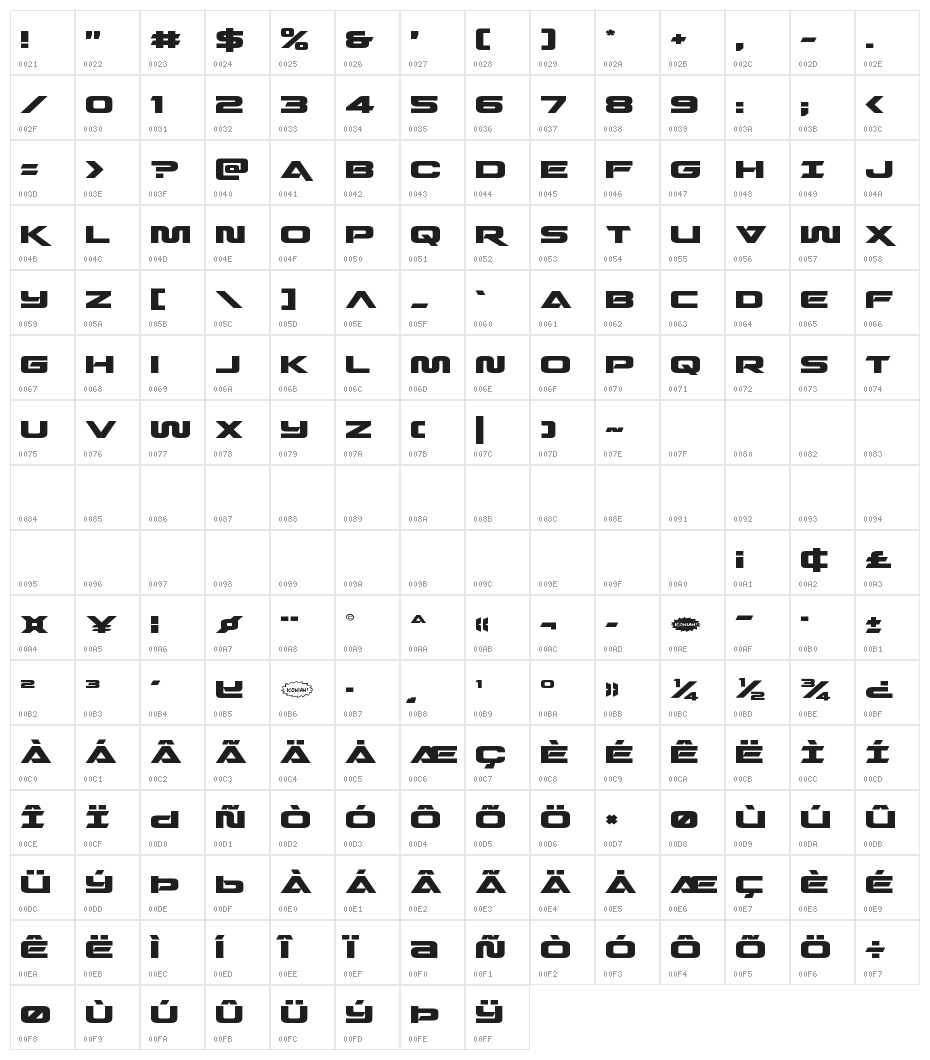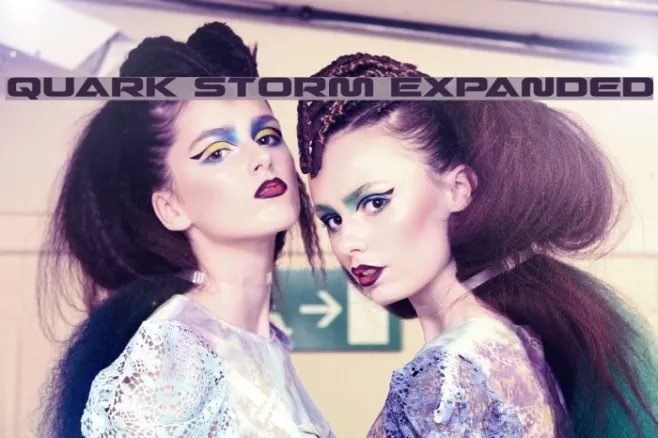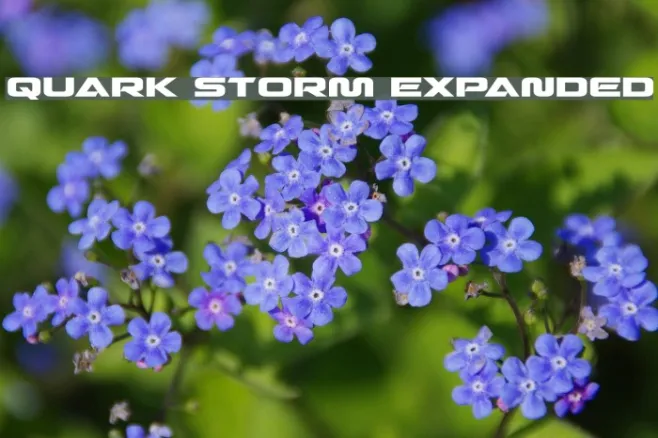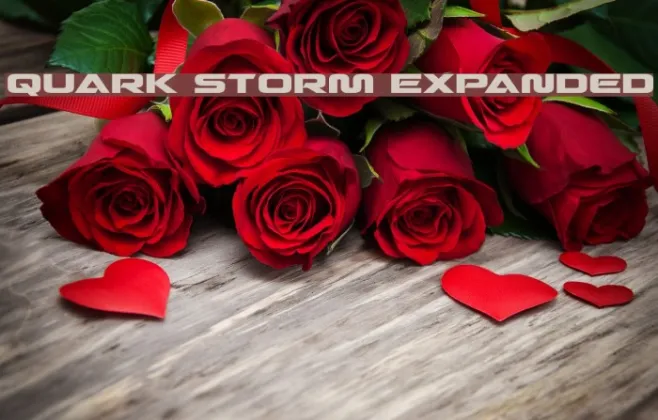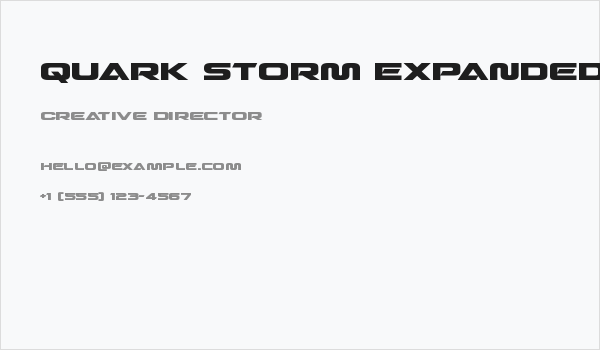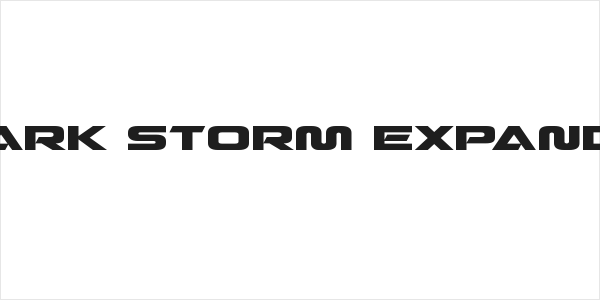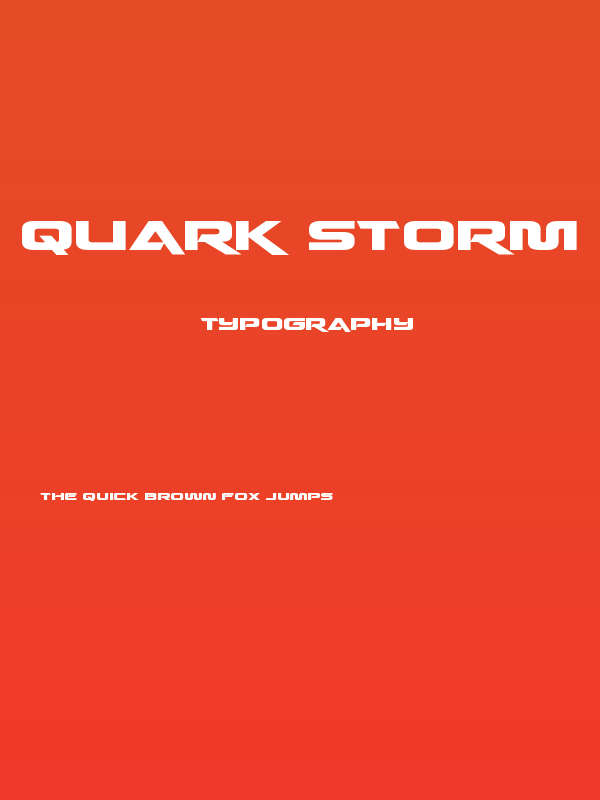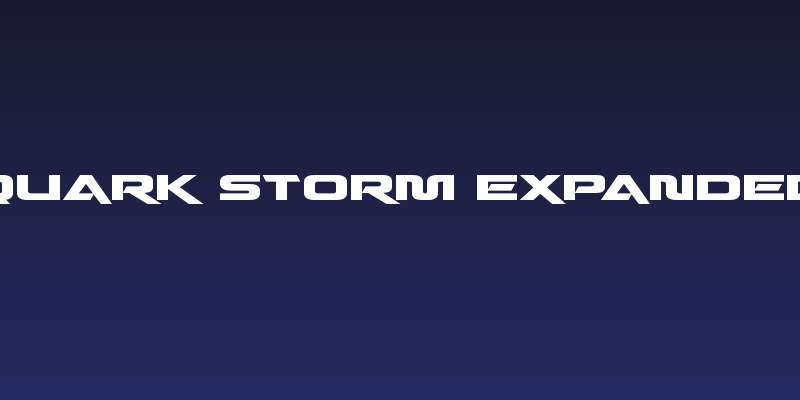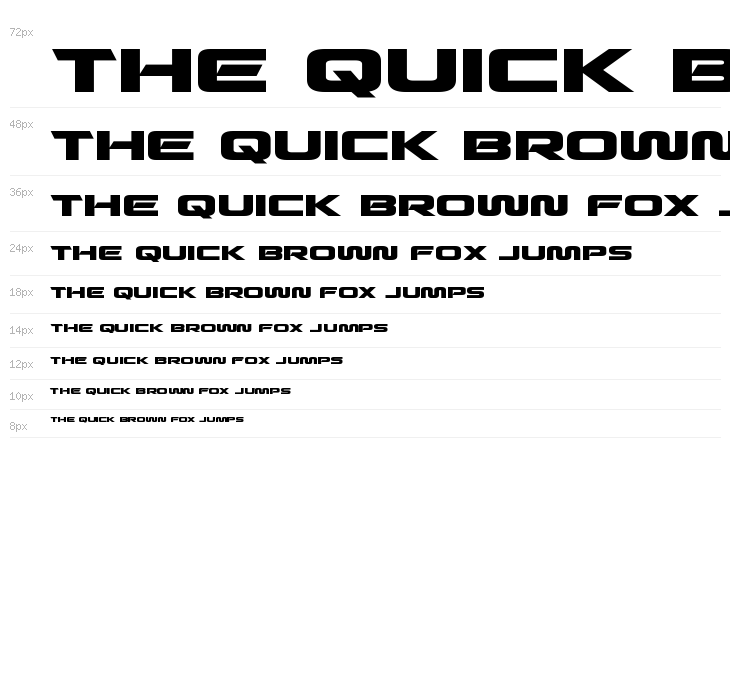
Quark Storm Expanded Font
Quark Storm Expanded Description
This font features a bold, futuristic design with a distinctly expanded width, giving it a strong and impactful presence. The characters are angular with sharp edges and a geometric style, making it ideal for modern and tech-oriented projects. The uppercase letters are particularly striking, with a uniform height and consistent spacing that enhances readability. The numerals and special characters maintain the same bold and expanded characteristics, ensuring a cohesive look across all text elements. This font's unique style is perfect for creating attention-grabbing headlines, logos, and branding materials that require a modern and dynamic appearance.
| Proposed Projects | Ideal for tech branding, sci-fi posters, video game titles, and modern advertising. |